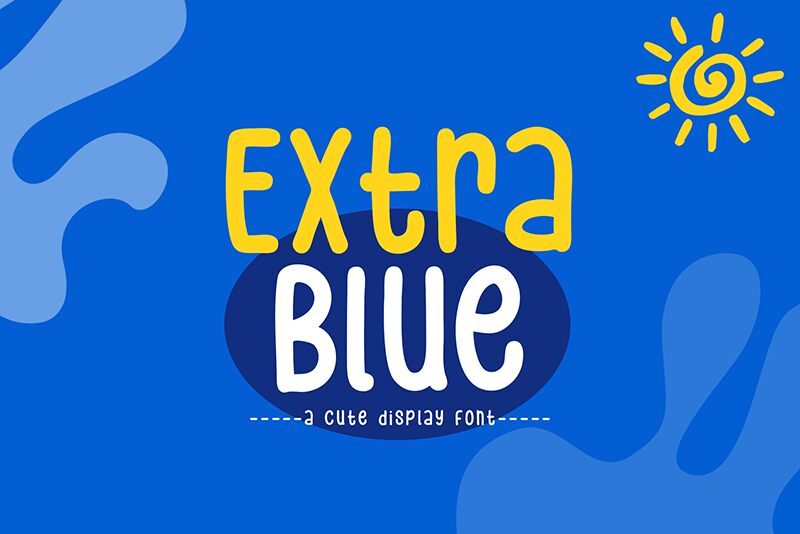
Extra Blue
Extra Blue font by Khurasan is a cartoon display font with a casual aesthetic. Designed with rounded features and irregular shapes, it has a modern appeal and a friendly vibe. A condensed handwritten font, it gives off an interesting visual display that will grab attention in any context.
Extra Blue’s playful characters make this free handwritten font perfect for children’s books, comics, books covers, posters, packaging boxes and bags, or party flyers. Other applicable uses include celebrating invitations from birthdays to baby showers as well as apparel items such as clothes or shoes.